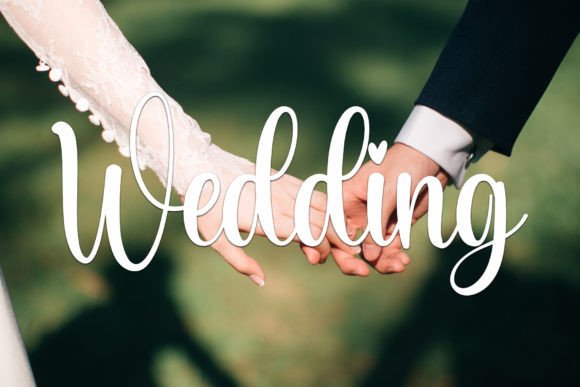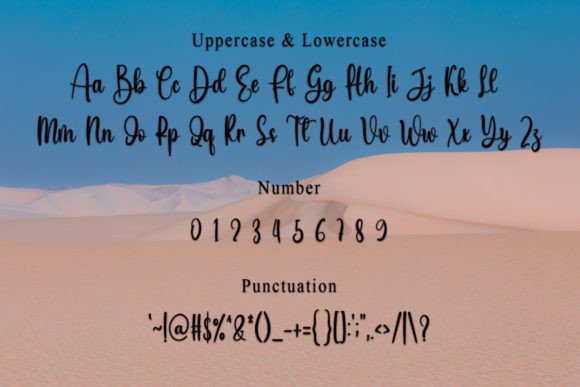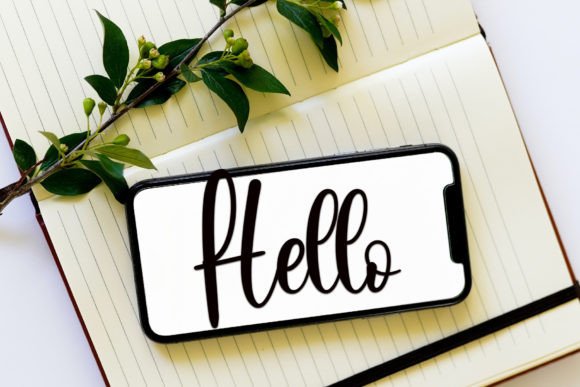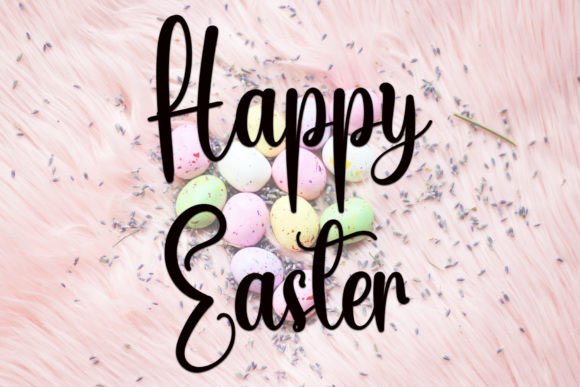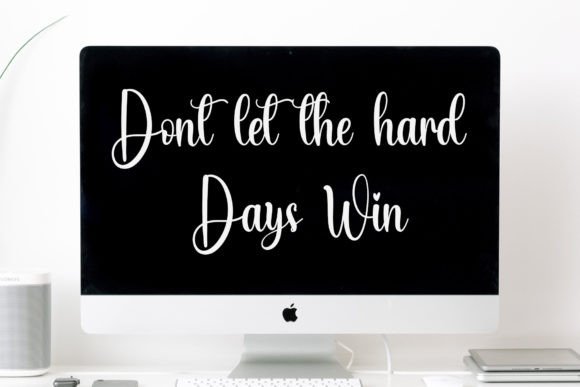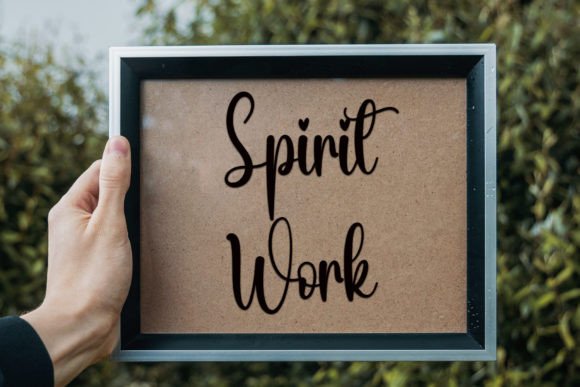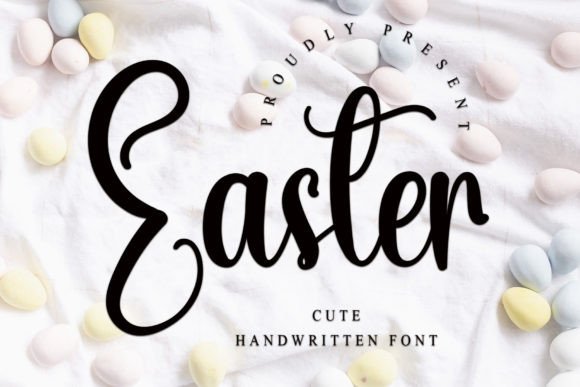
Easter Font: A Beautiful Handwritten Font for Your Creative Projects
Easter is a stunning, handwritten font that is perfect for adding a touch of elegance and sophistication to your favorite projects. With its distinct and timeless style, this beautiful font is sure to capture the hearts of designers, crafters, and anyone looking to create visually appealing designs.
What Makes Easter Font So Special?
Easter Font is a unique and charming typeface that boasts a neat and beautiful handwritten style. Its distinct characteristics make it an ideal choice for a wide range of creative projects, from greeting cards and invitations to branding and advertising materials. The font’s timeless style ensures that it will remain a popular choice for years to come, and its versatility makes it easy to use in various design contexts.
Key Features of Easter Font
- Handwritten style: Easter Font features a beautiful, handwritten style that adds a personal touch to any design.
- Distinct and timeless: The font’s unique characteristics make it stand out from other typefaces, while its timeless style ensures it will remain a popular choice.
- Versatile: Easter Font can be used in a variety of design contexts, from formal to informal, and is suitable for both digital and print applications.
- Elegant and sophisticated: The font’s elegant and sophisticated style makes it perfect for designs that require a touch of refinement.
How to Use Easter Font in Your Designs
Easter Font is an incredibly versatile typeface that can be used in a wide range of design projects. Here are a few ideas to get you started:
- Greeting cards and invitations: Add a personal touch to your greeting cards and invitations with Easter Font’s beautiful handwritten style.
- Branding and advertising: Use Easter Font to create elegant and sophisticated branding and advertising materials that will help your business stand out.
- Digital designs: Easter Font is perfect for digital designs, such as social media graphics, blog posts, and website headers.
- Print designs: The font is also suitable for print designs, including brochures, flyers, and posters.
Tips for Getting the Most Out of Easter Font
To get the most out of Easter Font, here are a few tips to keep in mind:
- Experiment with different sizes and colors: Easter Font looks great in a variety of sizes and colors, so don’t be afraid to experiment and find the perfect combination for your design.
- Pair it with other fonts: Easter Font pairs well with other fonts, so try combining it with a bold font for headings or a sans-serif font for body text.
- Use it consistently: To create a cohesive look, use Easter Font consistently throughout your design.
Easter Font is a beautiful, handwritten typeface that is perfect for adding a touch of elegance and sophistication to your designs. With its distinct and timeless style, this font is sure to capture the hearts of designers and crafters alike. Whether you’re working on a greeting card, invitation, branding material, or digital design, Easter Font is a versatile and elegant choice that will help you create stunning designs.